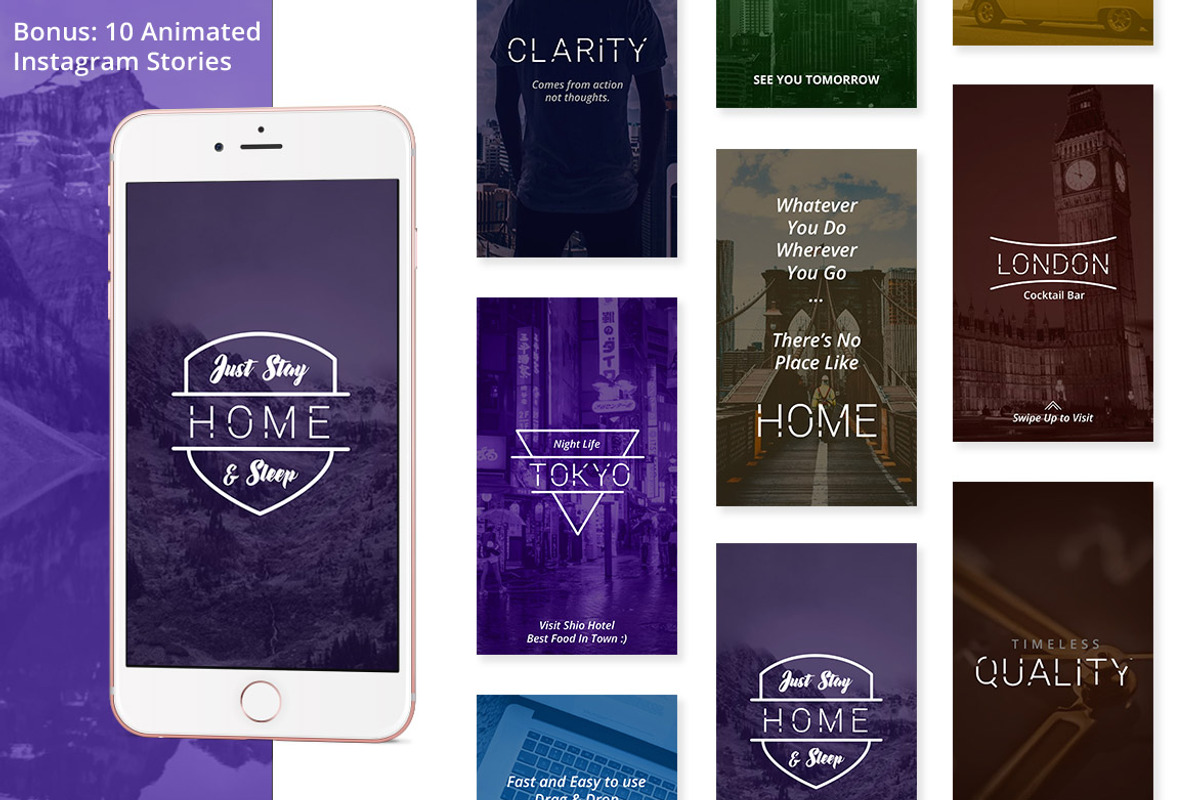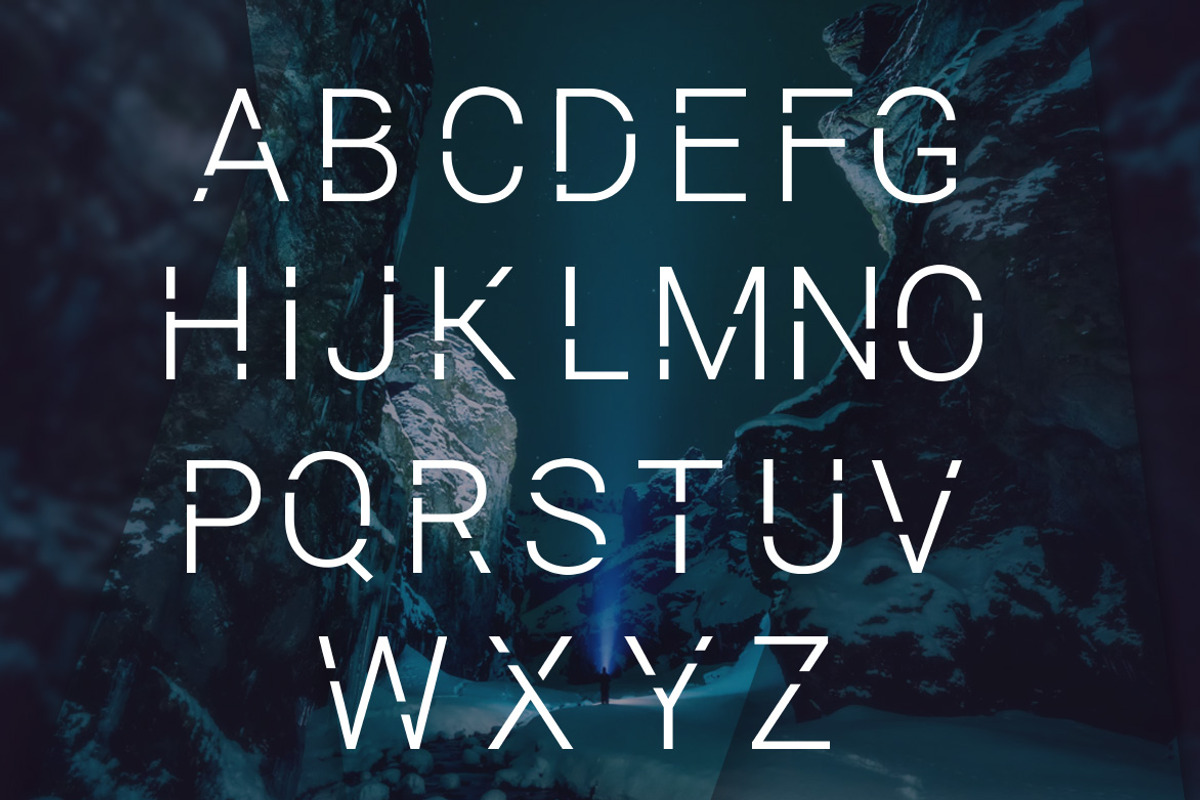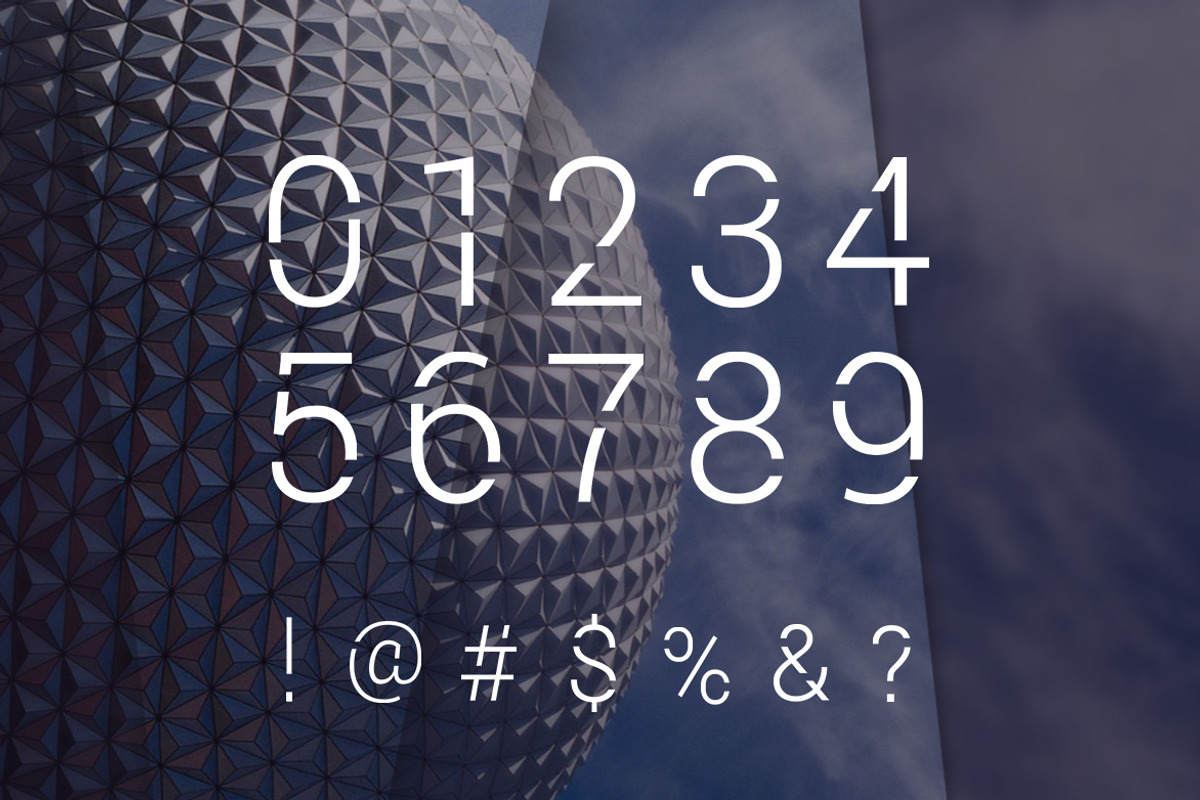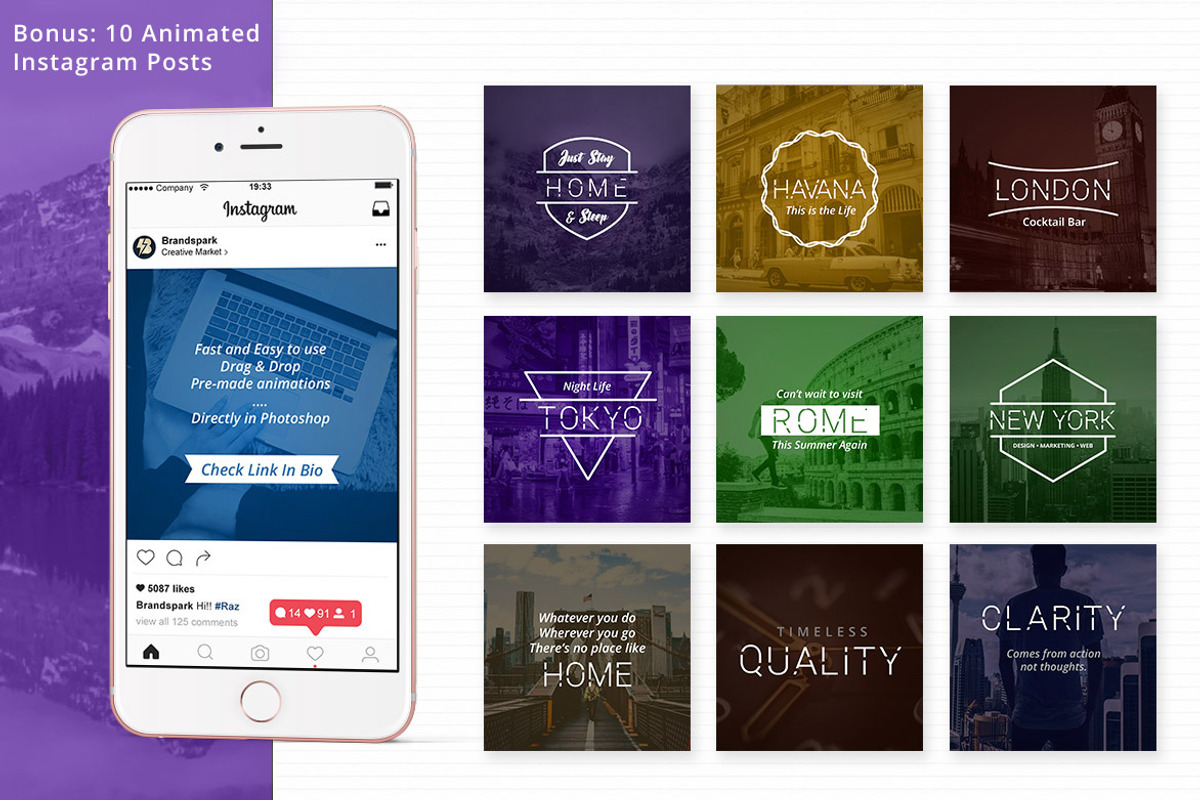
Minima One - Animated Font Photoshop
Minima One is a modern and minimalist sans-serif font that's pre-animated in Photoshop saved as .PSB files which you can easily drag and drop into your artboard and move around like regular Smart Object files in order to create your own video ads or social media content.
BONUS
- 10 Animated Instagram Posts
- 10 Animated Instagram Stories
- Pre-animated badges